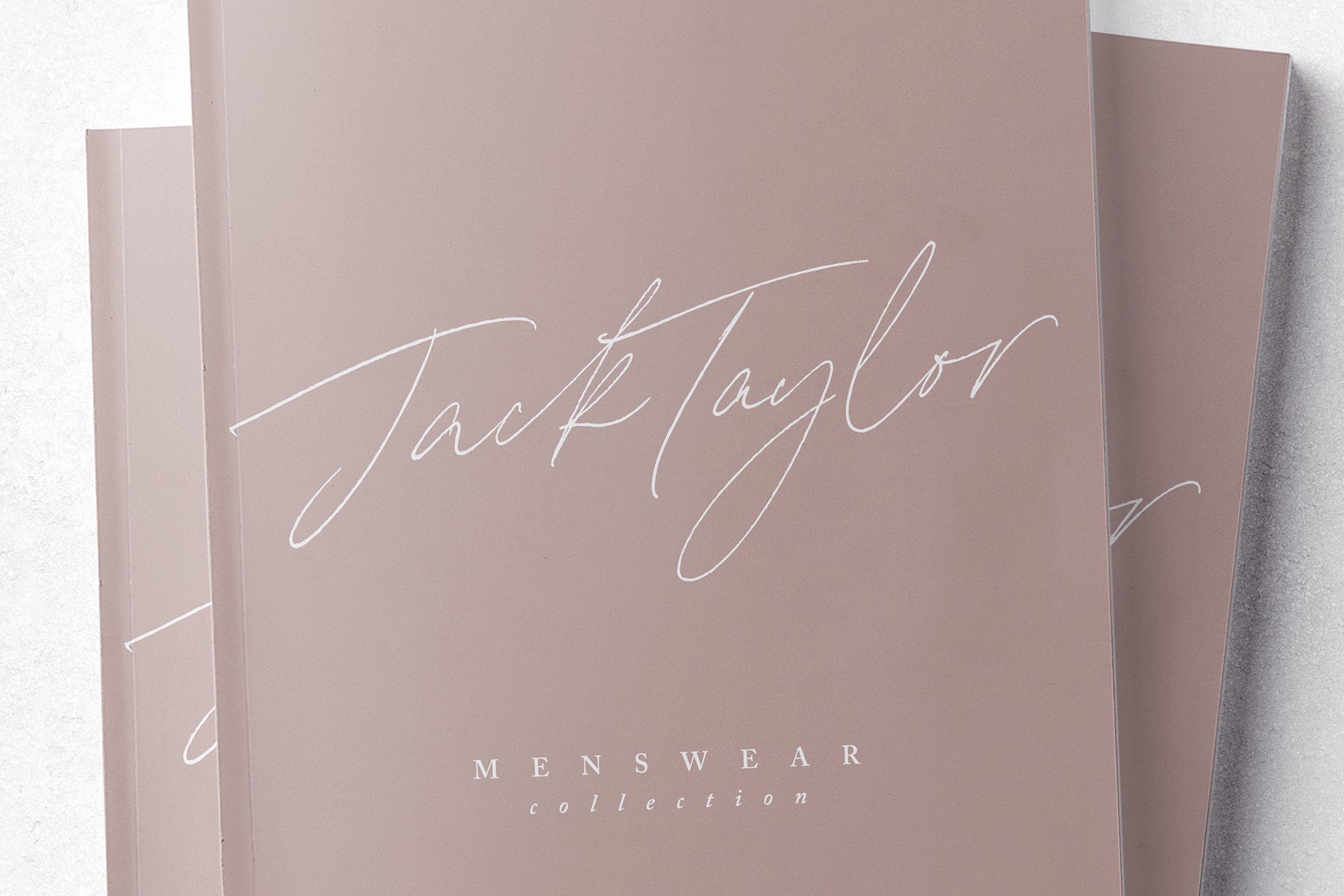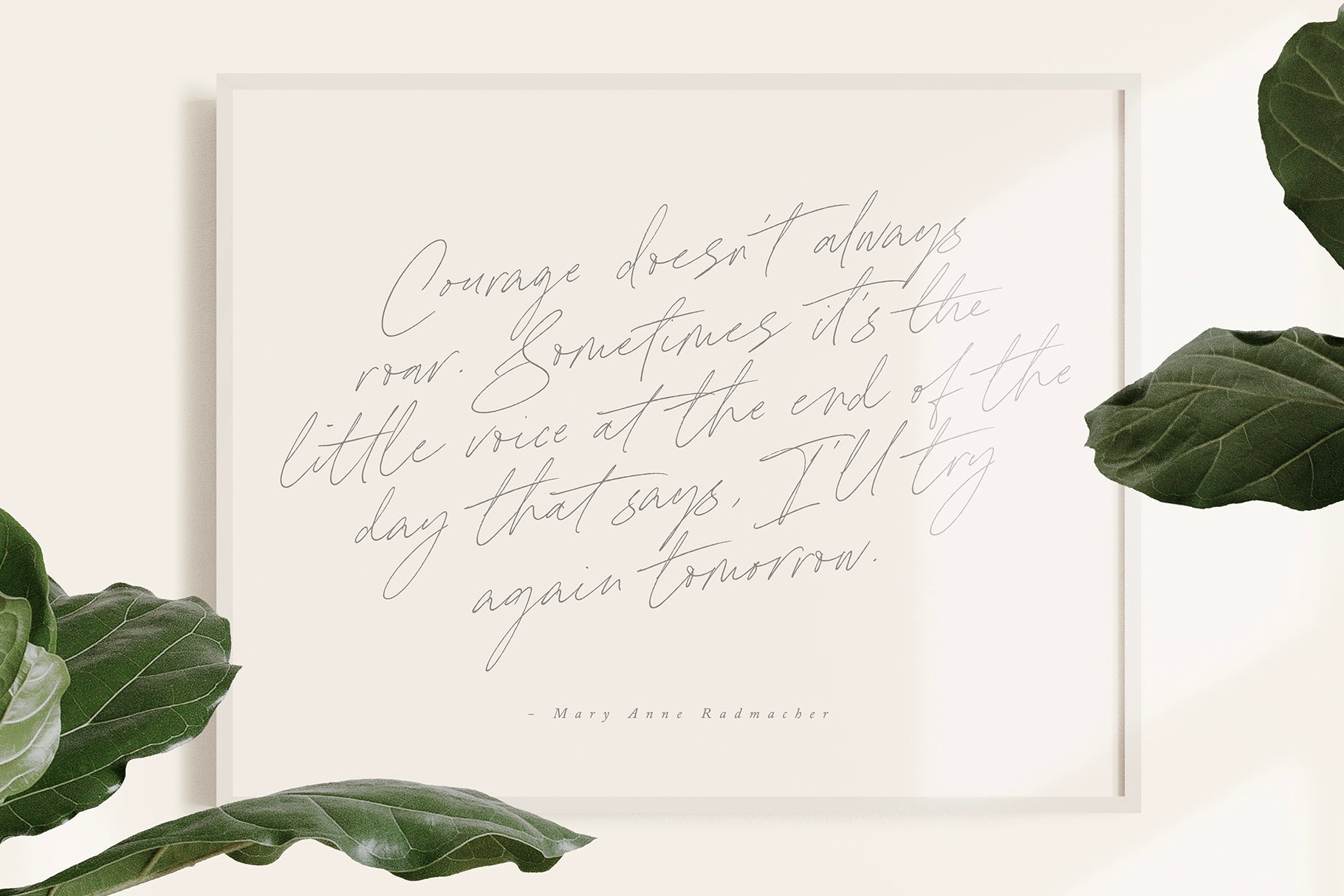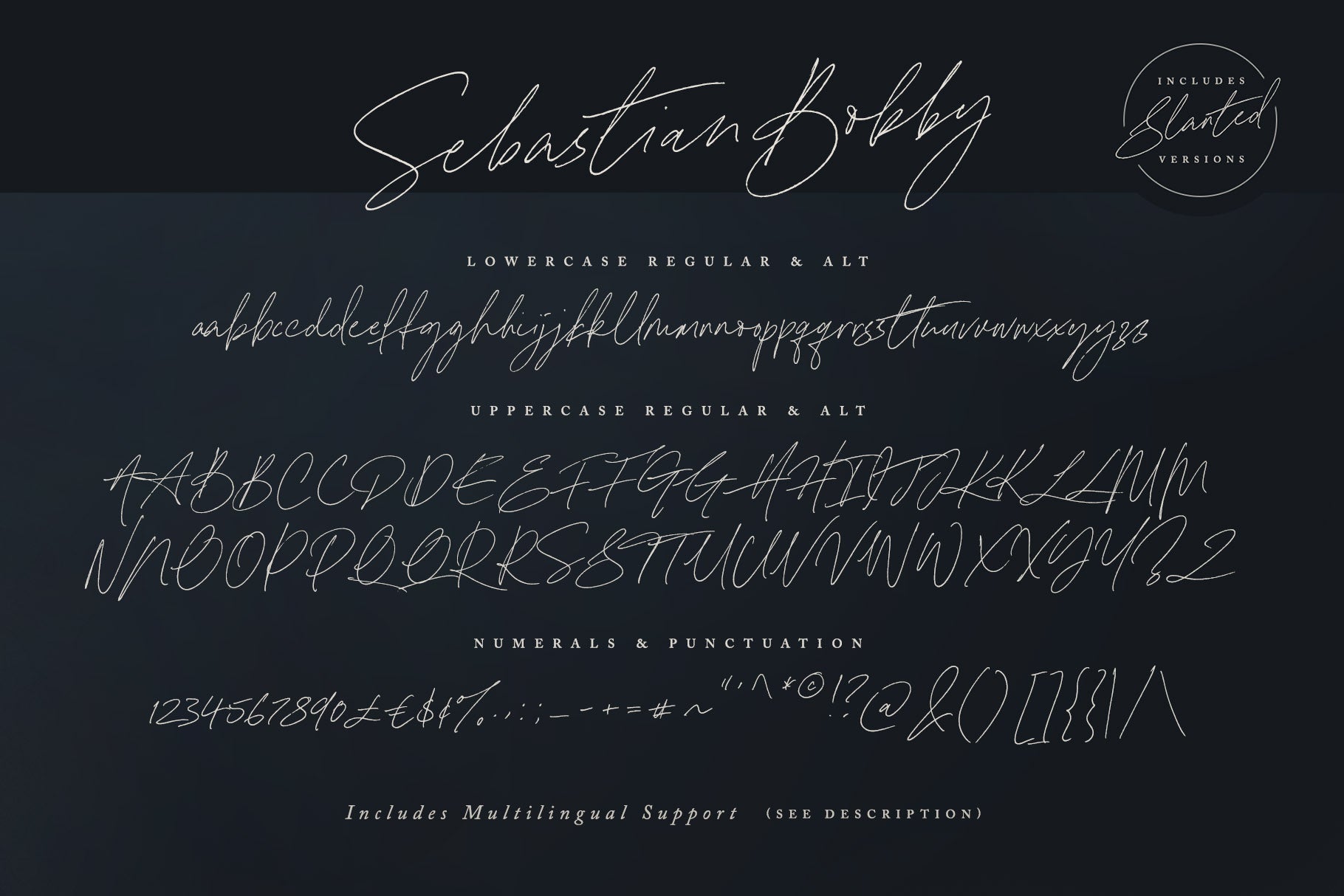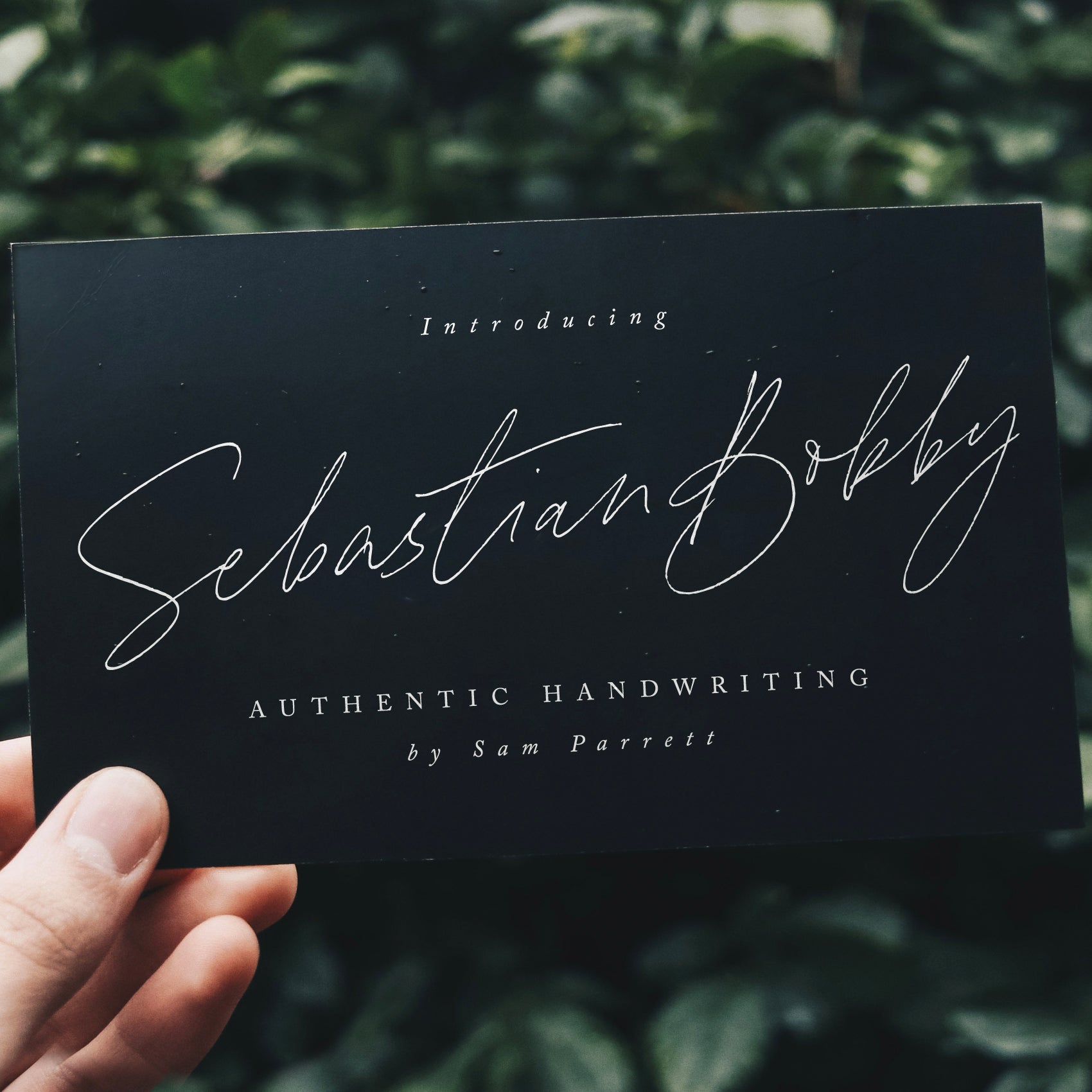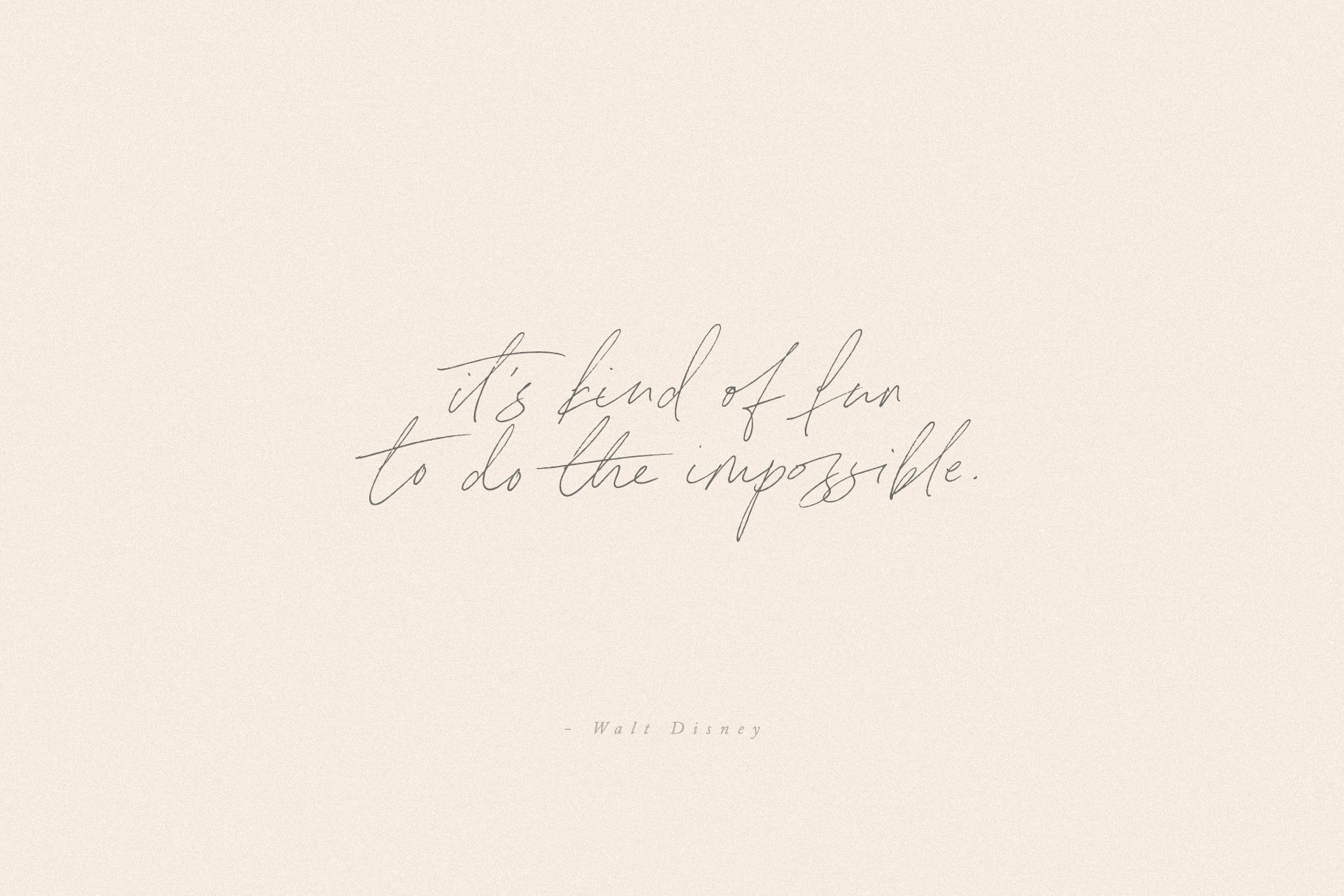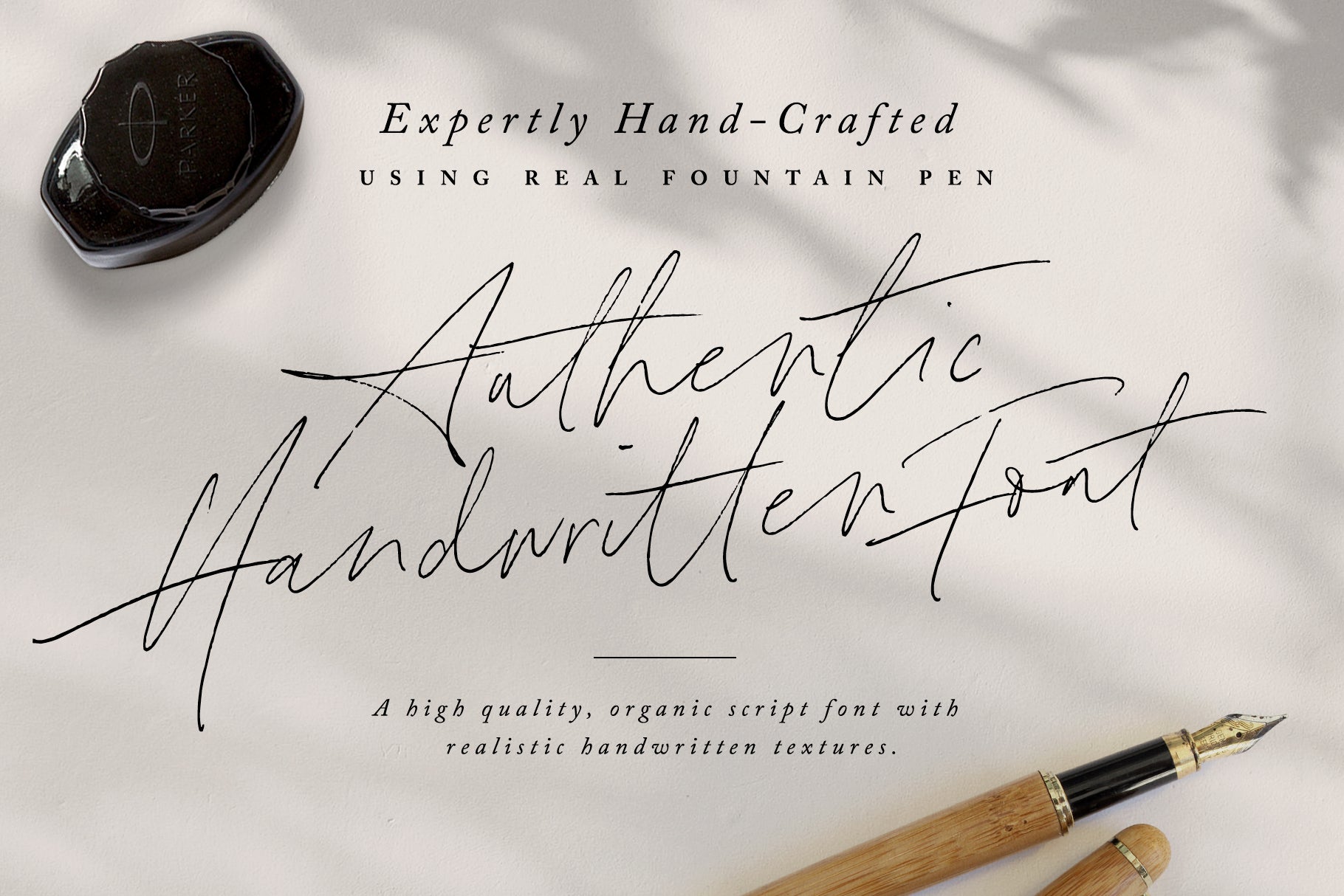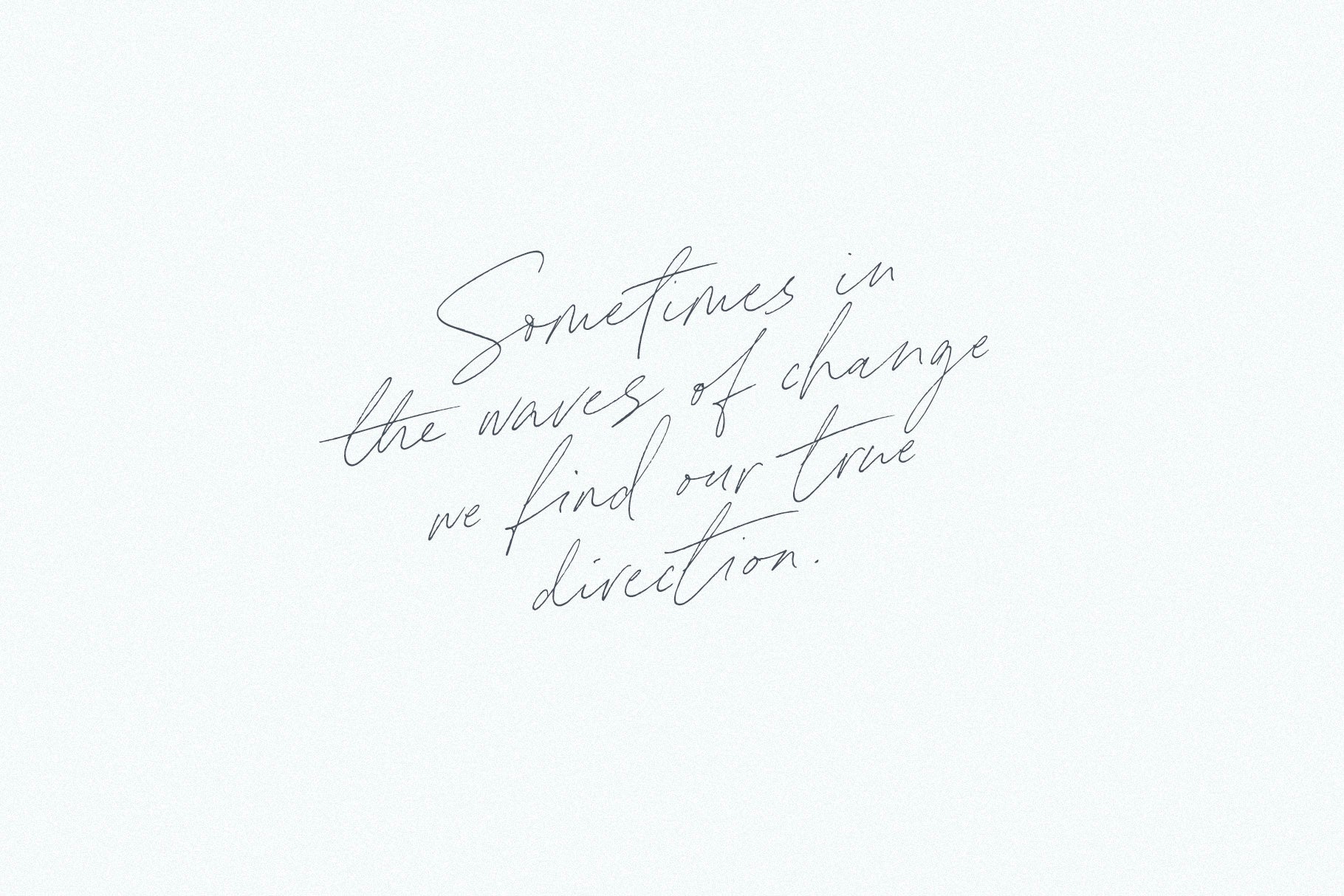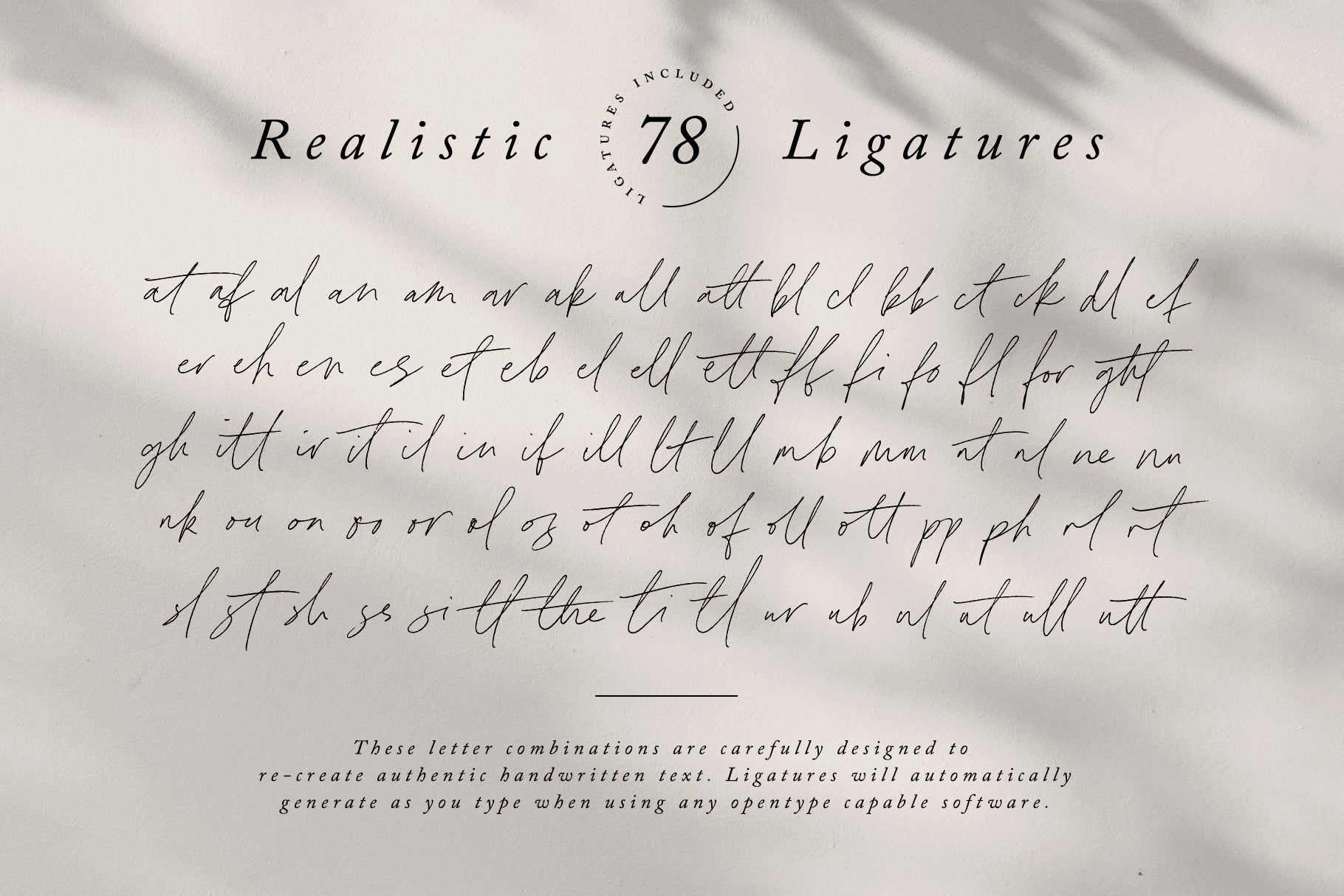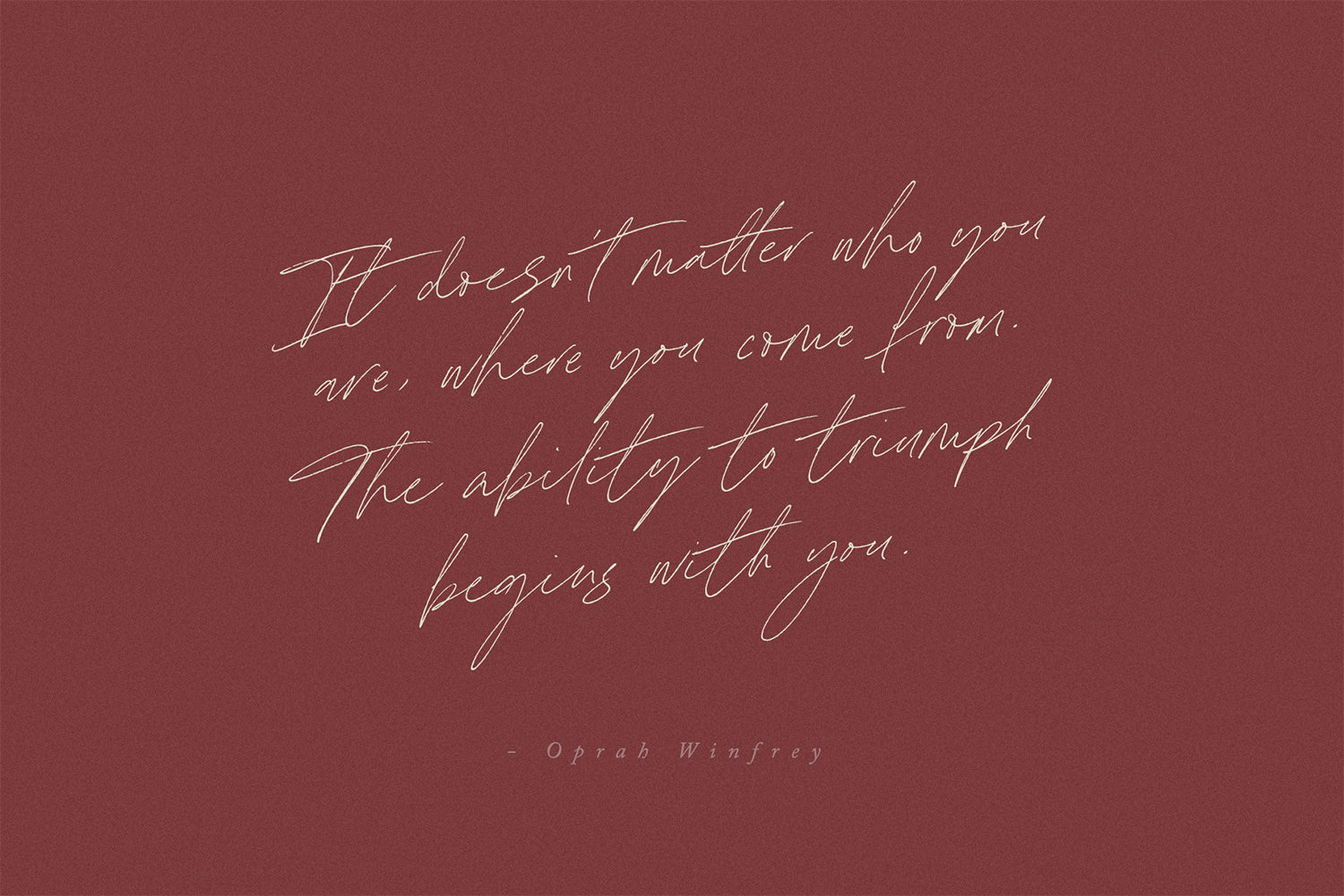
Sebastian Bobby Handwritten Font
The Sebastian Bobby Handwritten Font is an authentic hand-drawn script font created with a fountain pen, featuring 78 custom ligatures for natural handwritten text. It includes four font files in TTF and OTF formats: the main Sebastian Bobby font, an alternate version with a new set of characters, and slanted versions of both for an italicized look.